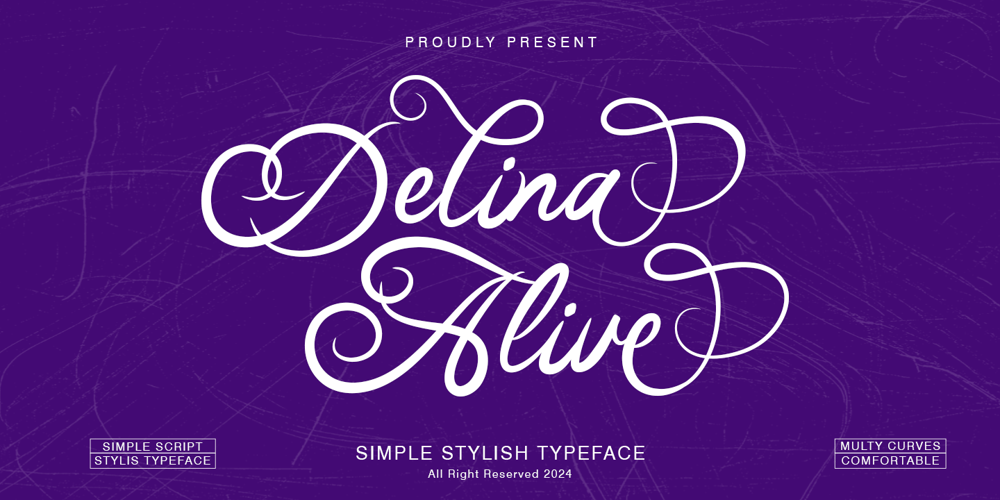
Delina Alive
Delina Alive font
Delina Alive Font Family was designed by Yusliana M Isa and published by Gian Studio. Delina Alive contains 1 styles and family package options. “Delina Alive” is a font designed in a handwritten style, often characterized by flowing strokes and a casual appearance. It usually mimics the look of cursive handwriting, with varying stroke widths and letter shapes to create a natural, organic feel. Fonts may feature decorative elements such as swashes or straps to enhance aesthetic appeal. Delina Alive can be used for a variety of design purposes, including invitations, signage, branding, and more, that require a personal and expressive touch.Delina Alive. ttIf you have any questions contact usThank You.